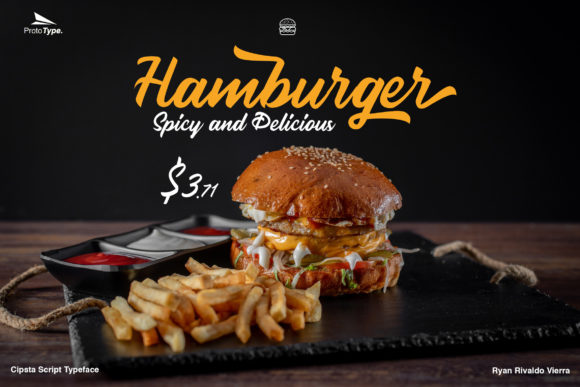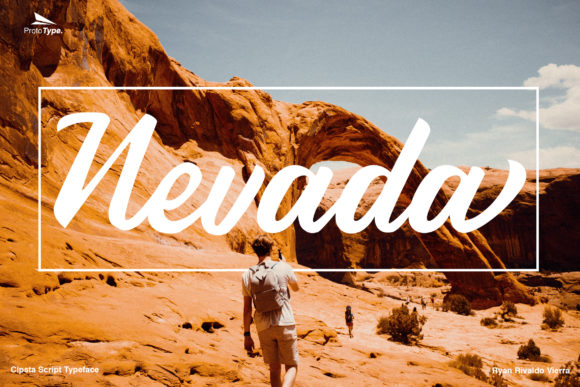
About Cipsta Scipt Font
Cipsta Scipt is a lovely and flowing handwritten font. It will add a luxury spark to any design project that you wish to create! This font is PUA encoded which means you can access all of the amazing glyphs and ligatures with ease!